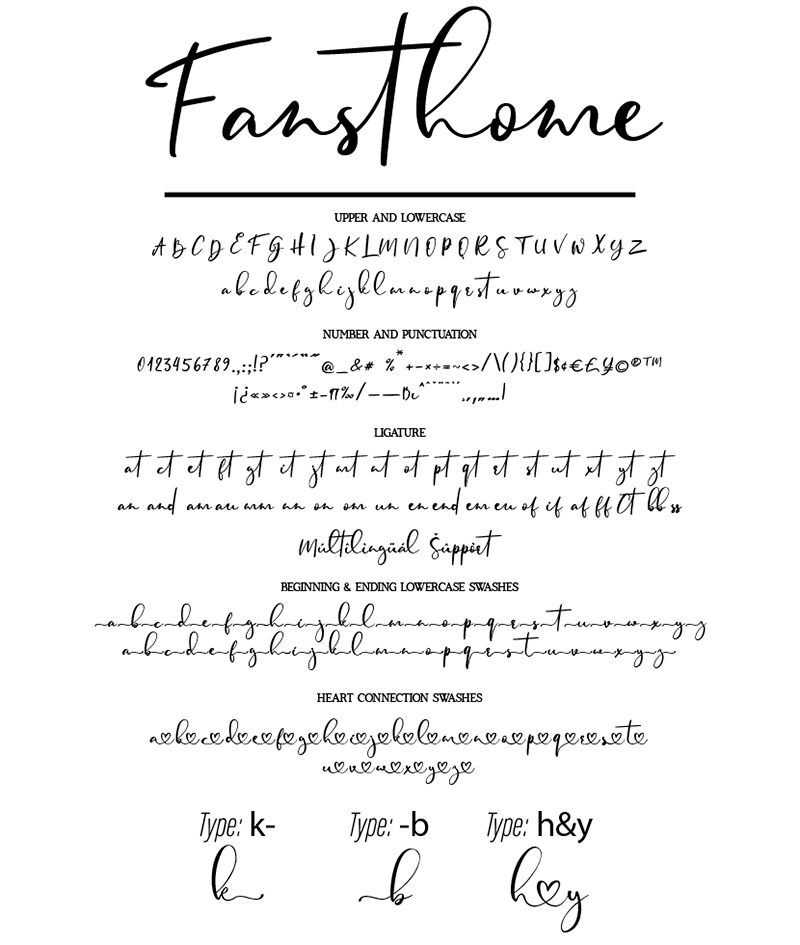
Fansthome is a stunning handwritten font designed by Anass Qara. Its light weight gives it an elegant and delicate appearance, perfect for adding a personal touch to your creative projects. Use Fansthome for invitations, greeting cards, or any project that requires a sophisticated and unique look. This font typeface is also great for fashion blogs, beauty branding, and wedding websites. With its stylish curves and smooth lines, Fansthome will make your designs stand out from the crowd. Give your projects a touch of creativity with Fansthome's charming handwritten style.
Fansthome is a modern Calligraphy font with magical Signature effect. it is perfect for creating signature logos and watermarks for photography studio or wedding invitation,best for initial or branding logo signature .
Fansthome includes full set of beautifull hand lettered uppercase and lowercase letters, numerals, a large range of punctuation and ligatures. All lowercase letters include beginning and ending swashes, giving realistic hand-lettered style.